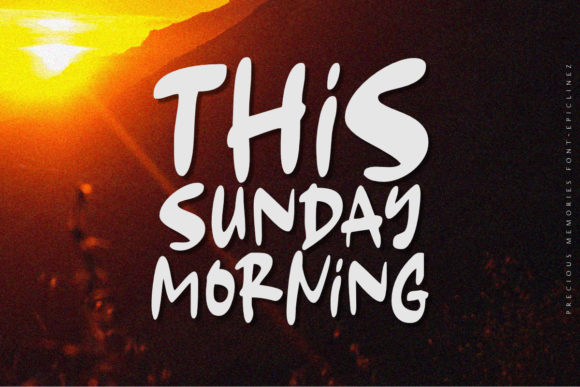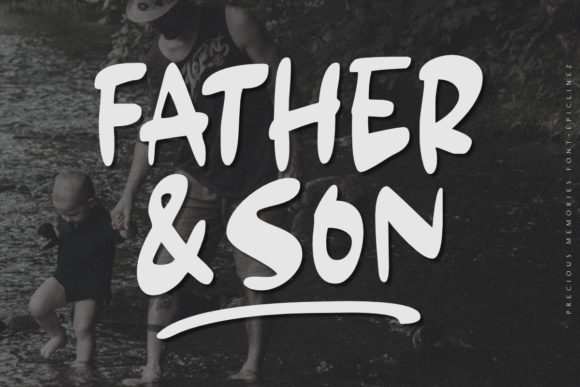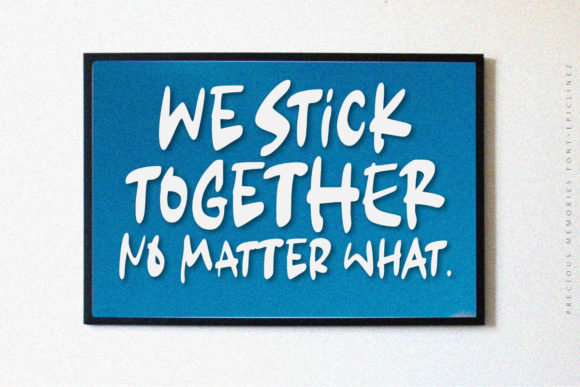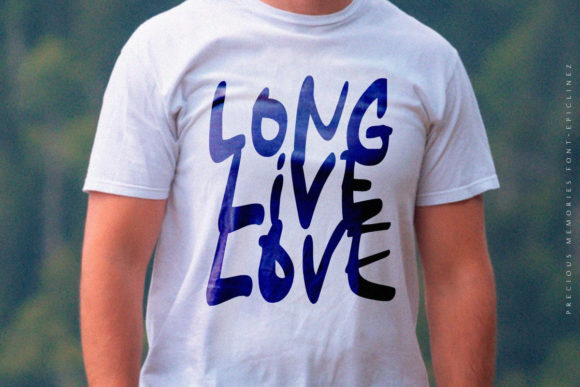
Introduction to Precious Memories Font
Remember that moment when you finally nailed the perfect design for your client’s project? The rush of excitement and satisfaction you felt as the pixels came together in harmony? That’s what makes Precious Memories Font so special – it has the power to elevate any creative project and leave a lasting impression.
As a valuable addition to your design library, Precious Memories Font is a high-quality, free download that offers a unique blend of style and sophistication. Its cool, brushed aesthetic makes it perfect for a wide range of creative projects, from digital art to print materials, and even web design. Whether you’re working on a personal project or collaborating with clients, Precious Memories Font is a design resource you won’t want to be without.
With its transparent background and versatile design, Precious Memories Font is an incredibly valuable asset for designers of all levels. From concept to completion, this font will help you create something truly special – and that’s a precious memory worth holding onto.
Precious Memories Font
- High-quality font design with intricate details, perfect for creative projects and design resources.
- Comes with a transparent background, allowing for easy integration with various design elements.
- Includes a range of characters, including uppercase and lowercase letters, numbers, and special symbols.
- Designed with a vintage aesthetic, adding a touch of nostalgia and elegance to any design project.
Honest Review: Precious Memories Font
I recently came across the Precious Memories Font, and I’m excited to share my thoughts on this design resource. As a designer, I’m always on the lookout for high-quality fonts that can elevate my creative projects.
One of the things I appreciate about the Precious Memories Font is its transparent background, which makes it easy to use on a variety of backgrounds and designs. This is especially useful for projects where you want the text to take center stage.
- ✨ High-quality design: The font is crisp and clean, making it perfect for a variety of design projects.
- ✨ Transparent background: This feature makes it easy to use the font on different backgrounds and designs.
- ⚠️ Limited character set: The font only includes a limited character set, which may not be suitable for projects that require a wide range of characters.
- ⚠️ Not suitable for large text: While the font looks great in small to medium-sized text, it may not be the best choice for large text due to its delicate design.
Overall, I’m impressed with the Precious Memories Font and would recommend it for creative projects where a high-quality, transparent font is needed. While it has some limitations, its strengths make it a valuable addition to any designer’s toolkit.
Precious Memories Font
The Precious Memories Font is a high-quality design resource that can be used for various creative projects. It’s available for free download and features a transparent background, making it easy to integrate into your design.
Some common use cases for the Precious Memories Font include:
Wedding invitations and decorations
Photography captions and quotes
Personalized gifts and cards